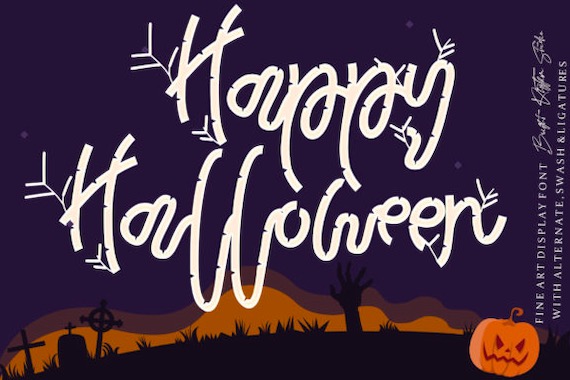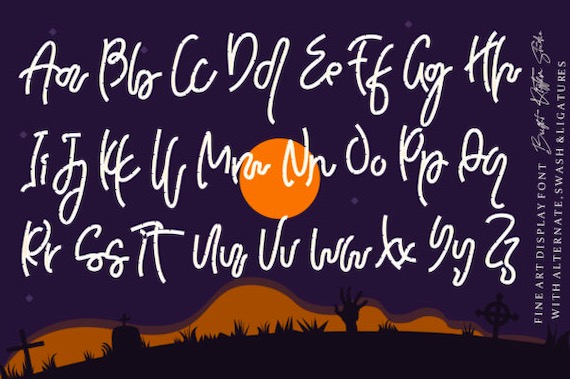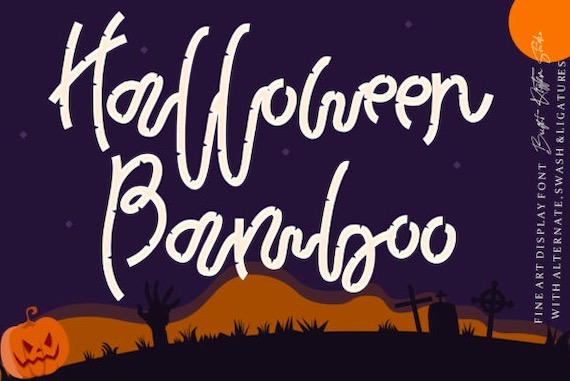
Halloween Bamboo Font is a lovely & fancy handwritten script typeface that has a playful & charming look. This groovy font was made and shared by Bright Rhythm Studio, it will make your work stand out.
Halloween Bamboo Display Font
Font family: Halloween Bamboo Font
Full font name: Halloween Bamboo Font
Designer Name: Bright Rhythm Studio